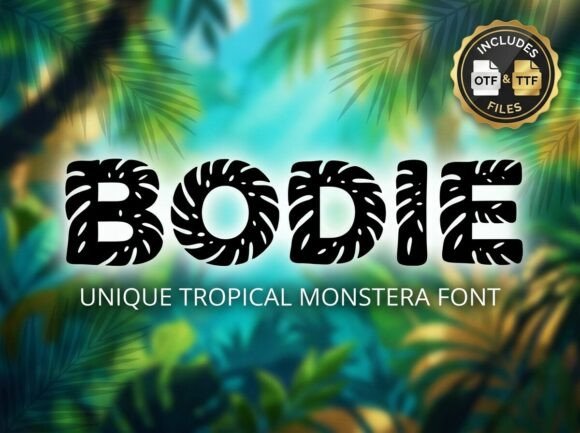
Bodie Font: A Stunning Decorative Display Font for Creators
Are you tired of using the same old fonts for your designs? Look no further than the Bodie Font, a unique and artistic display font that’s sure to turn heads. With its strong visual personality and decorative elements, this font is perfect for creators who want to add a touch of elegance and sophistication to their work.
What Makes Bodie Font Special?
The Bodie Font is a decorative display font designed to be the center of attention. Its unique artistic elements and strong visual personality make it perfect for bold headlines, artistic logos, and creative packaging. Whether you’re a graphic designer, crafty DIY enthusiast, or online content creator, this font is sure to elevate your work to the next level.
Key Features of Bodie Font
- Unique Artistic Elements: The Bodie Font features intricate and decorative elements that add a touch of elegance to any design.
- Strong Visual Personality: This font has a bold and eye-catching personality that’s sure to grab attention.
- Versatile: The Bodie Font is perfect for a variety of design projects, including bold headlines, artistic logos, and creative packaging.
- Professional and Polished Finish: Despite its decorative nature, this font maintains a professional and polished finish that’s suitable for any design project.
IMPORTANT NOTE BEFORE PURCHASE: The Bodie Font is an ALL-CAPS (Uppercase Only) display typeface. It does not include lowercase letters. It is specifically designed for high-impact headlines, logos, and decorative initials where every letter is a work of art.
Who is Bodie Font for?
The Bodie Font is perfect for:
- Graphic Designers: Add a touch of elegance and sophistication to your designs with this unique and artistic font.
- Crafty DIY Enthusiasts: Use the Bodie Font to create beautiful and eye-catching crafts, such as handmade cards, invitations, and decorations.
- Online Content Creators: Stand out from the crowd with this bold and eye-catching font, perfect for blog posts, social media graphics, and more.
Tips for Using Bodie Font
Here are a few tips for getting the most out of the Bodie Font:
- Use it for Headlines: The Bodie Font is perfect for bold headlines and titles, adding a touch of elegance and sophistication to any design.
- Experiment with Colors: Try pairing the Bodie Font with different colors and textures to add depth and interest to your design.
- Keep it Simple: Don’t be afraid to keep your design simple and clean, letting the Bodie Font be the focal point.